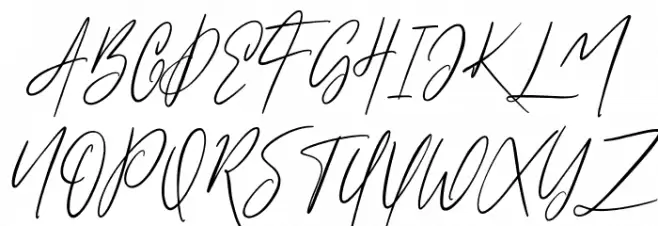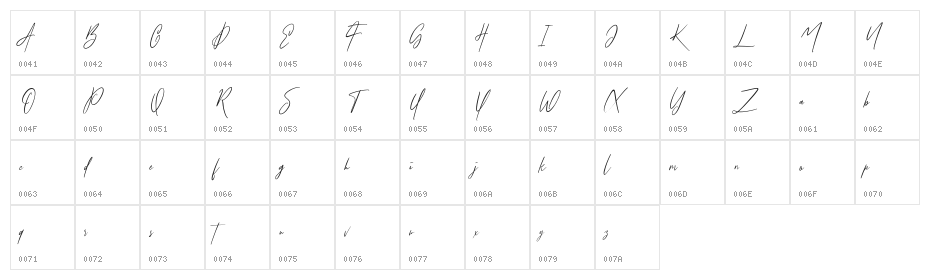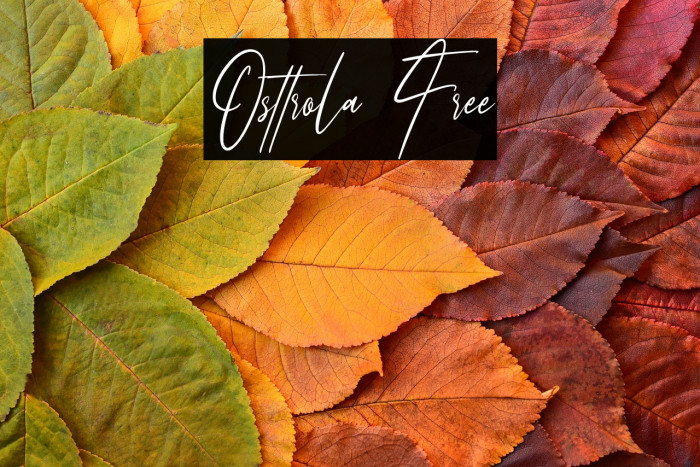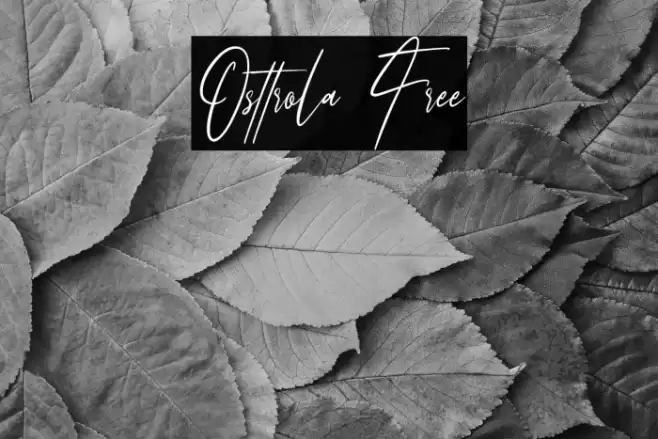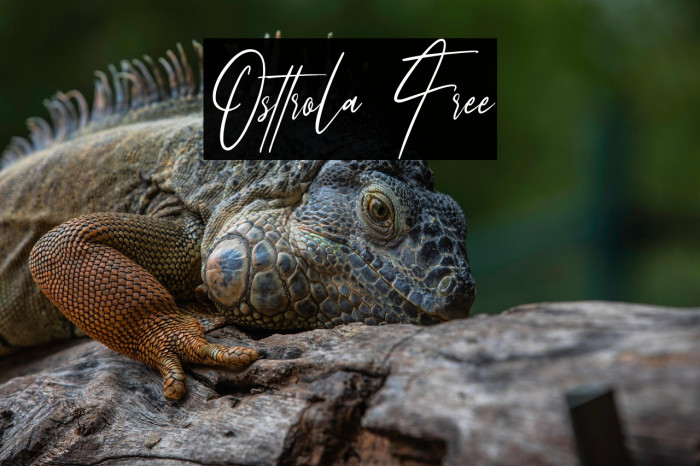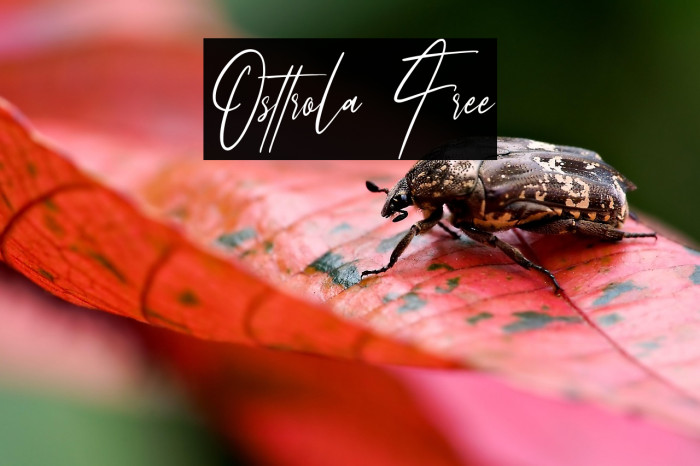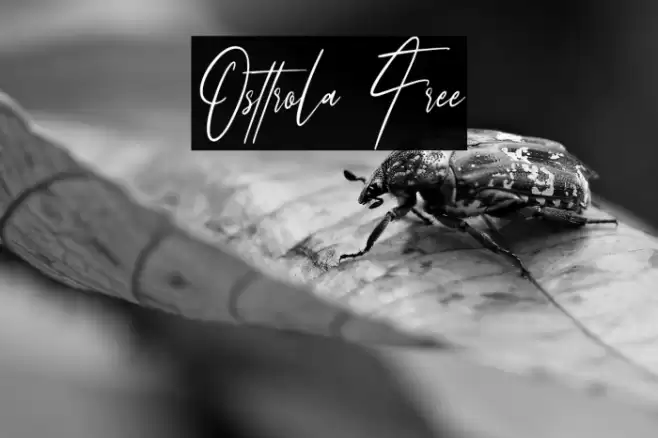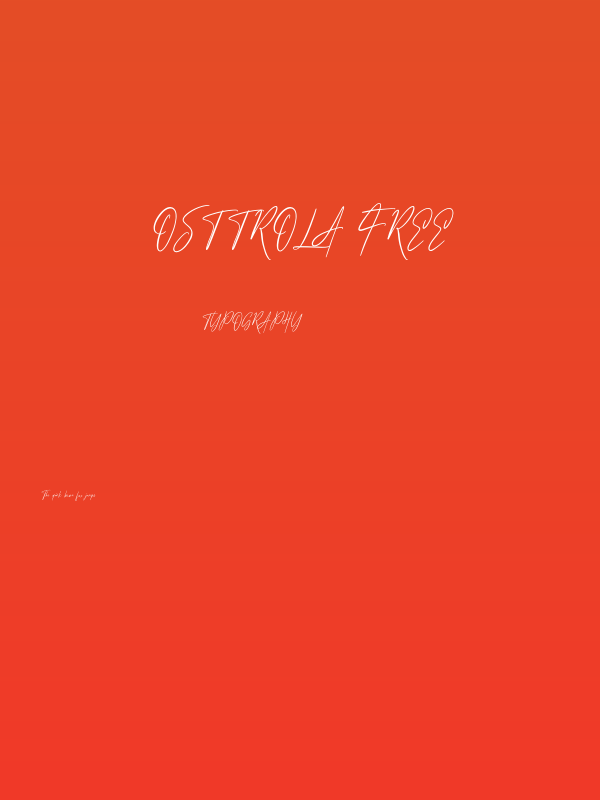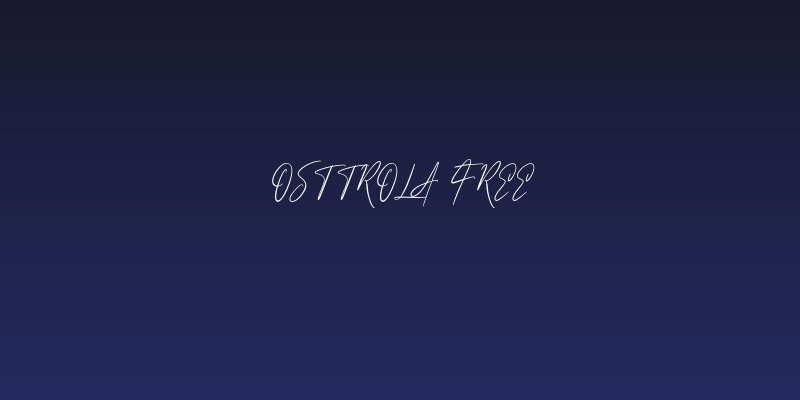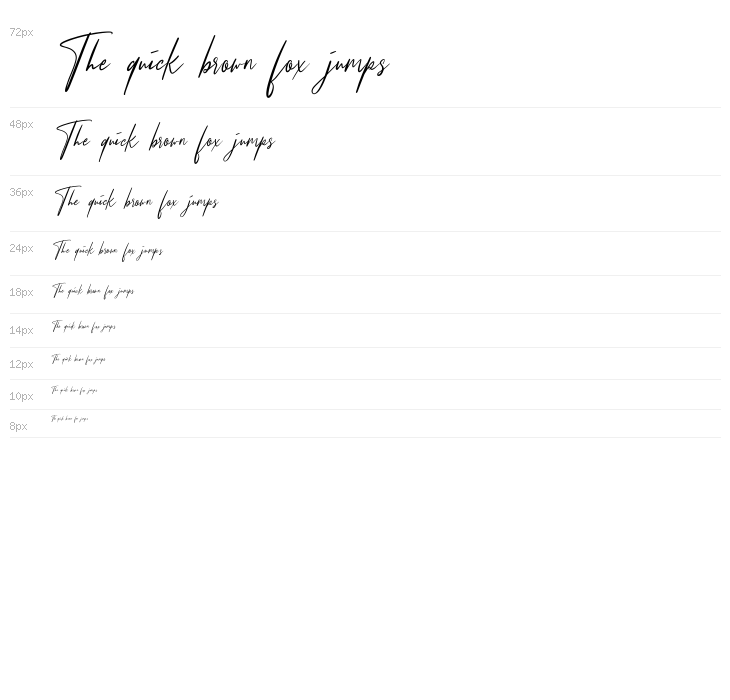
Osttrola Free Font
Osttrola Free Description
This font exhibits a flowing, handwritten style with a modern twist. The letters are elegantly elongated with a slight slant, giving it a dynamic and fluid appearance. The strokes are thin and delicate, yet maintain a consistent weight throughout, adding to its refined aesthetic. The uppercase letters are bold and expressive, while the lowercase letters maintain a more subtle and cohesive look. The overall design is both artistic and legible, making it suitable for a variety of creative applications.
| Proposed Projects | Ideal for wedding invitations, greeting cards, branding projects, and social media graphics. |